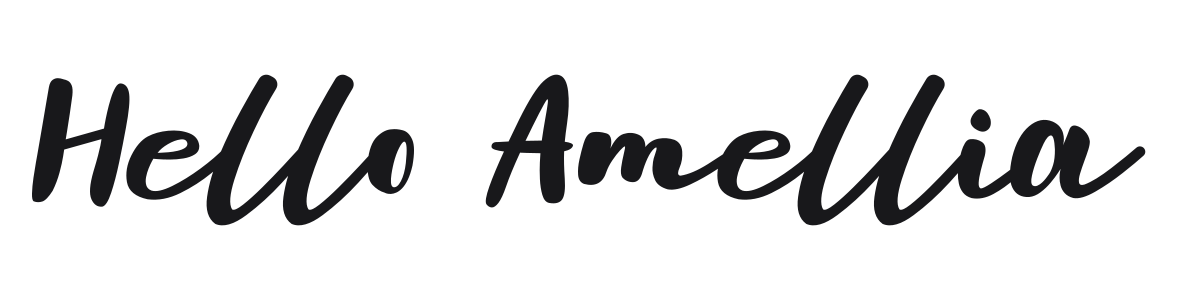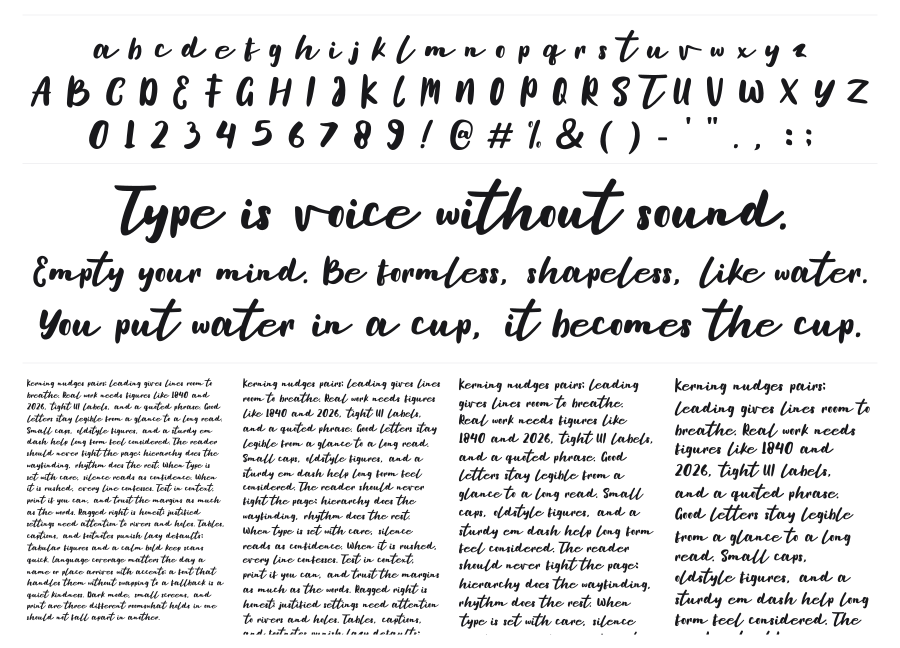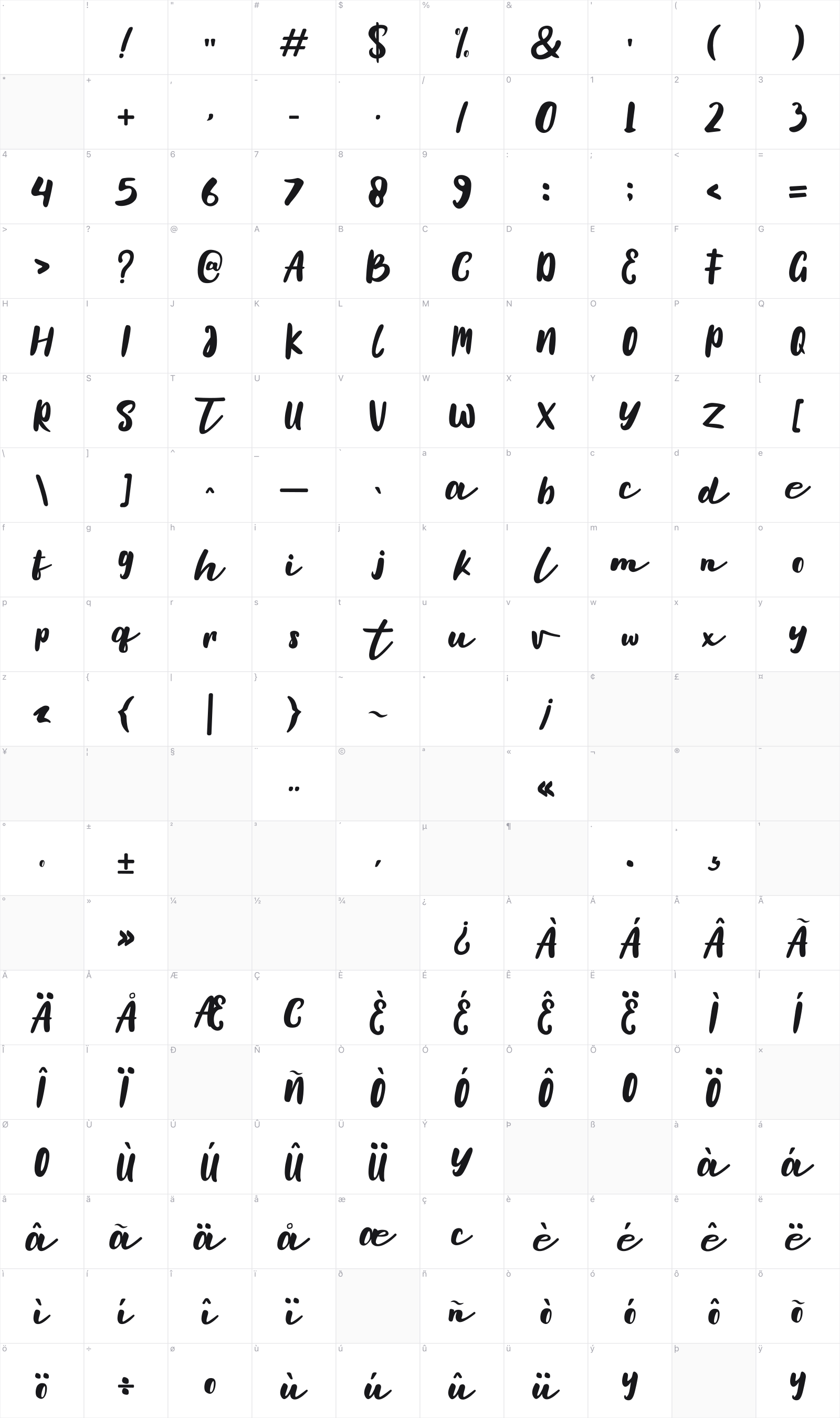
Hello Amellia
Hello Amellia is a bold contemporary brush script with fluid, connected strokes that feel genuinely hand-lettered. The characters move with natural rhythm and energy, making it a go-to for wedding stationery, greeting cards, and brand identity work that needs a personal, handcrafted touch. It reads warmly at large sizes and keeps its charm on packaging and social graphics.